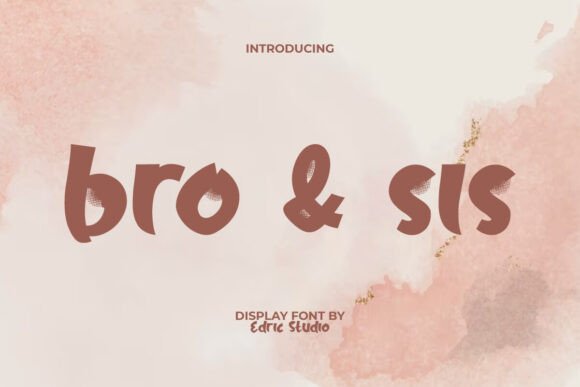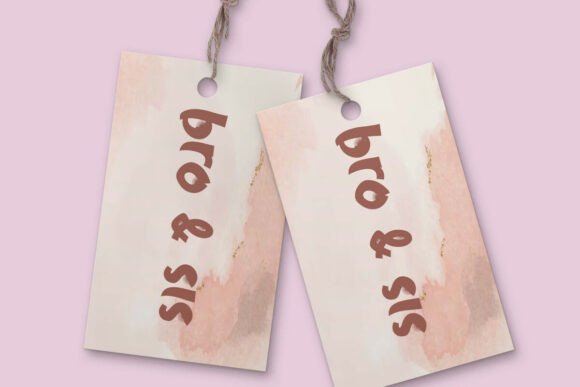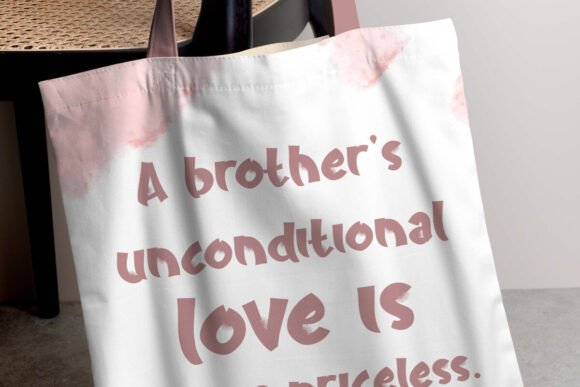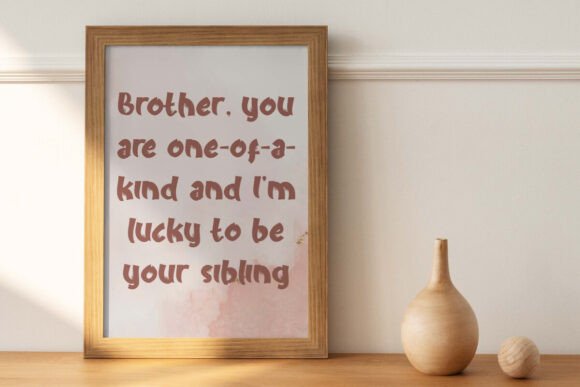
Bro & Sis Font: A Cute Display Font for Modern Logo Design
About the Bro & Sis Font
The Bro & Sis Font is here to transform your projects with its distinctive character and style. Bro & Sis Font is a unique Japanese brush display font with element of the letters. The impression that is highlighted is that the letters are sharp and solid with inner corners that create a blurry effect. It feels fantastic for your designs, such as apps, billboard, blogs, cover, flyer, header, logos, packaging design, poster, price label, screen print, signage, stationery, sticker, title, website, and much more.
Bro & Sis Font’s bold, graphic nature makes it ideal for headlines, posters, and branding applications where a strong visual impact is desired. Its unique texture works particularly well on packaging and signage, adding a touch of hand-crafted authenticity. However, the sharp strokes and relatively large x-height make it less suitable for body text or UI elements requiring high readability at smaller sizes.
Pairing it with a clean sans-serif like Futura or a minimalist geometric font like Montserrat creates a balanced contrast, allowing Bro & Sis Font to maintain its visual prominence without overwhelming the design. For a warmer feel, consider pairing it with a softer serif like Garamond or a handwritten script font, but ensure legibility remains a priority in the overall composition.
The font projects a modern, confident personality with a hint of playful energy. It’s best suited for brands that wish to convey a sense of bold creativity and authenticity, particularly those in fashion, street art, music, or lifestyle sectors.
Bro & Sis Font Usage Examples